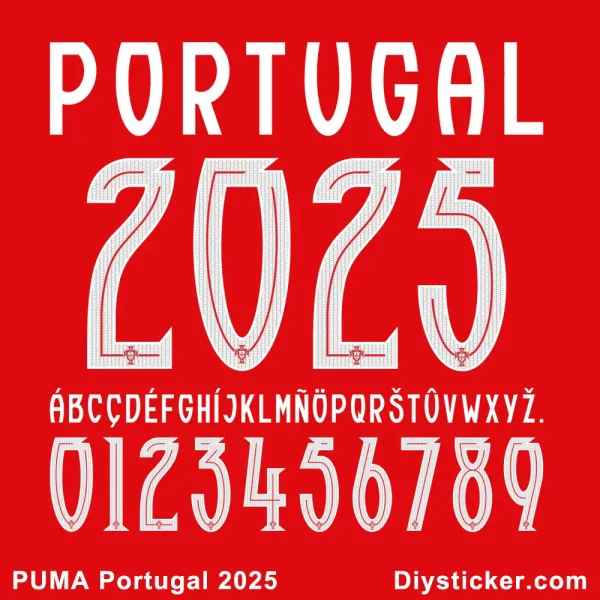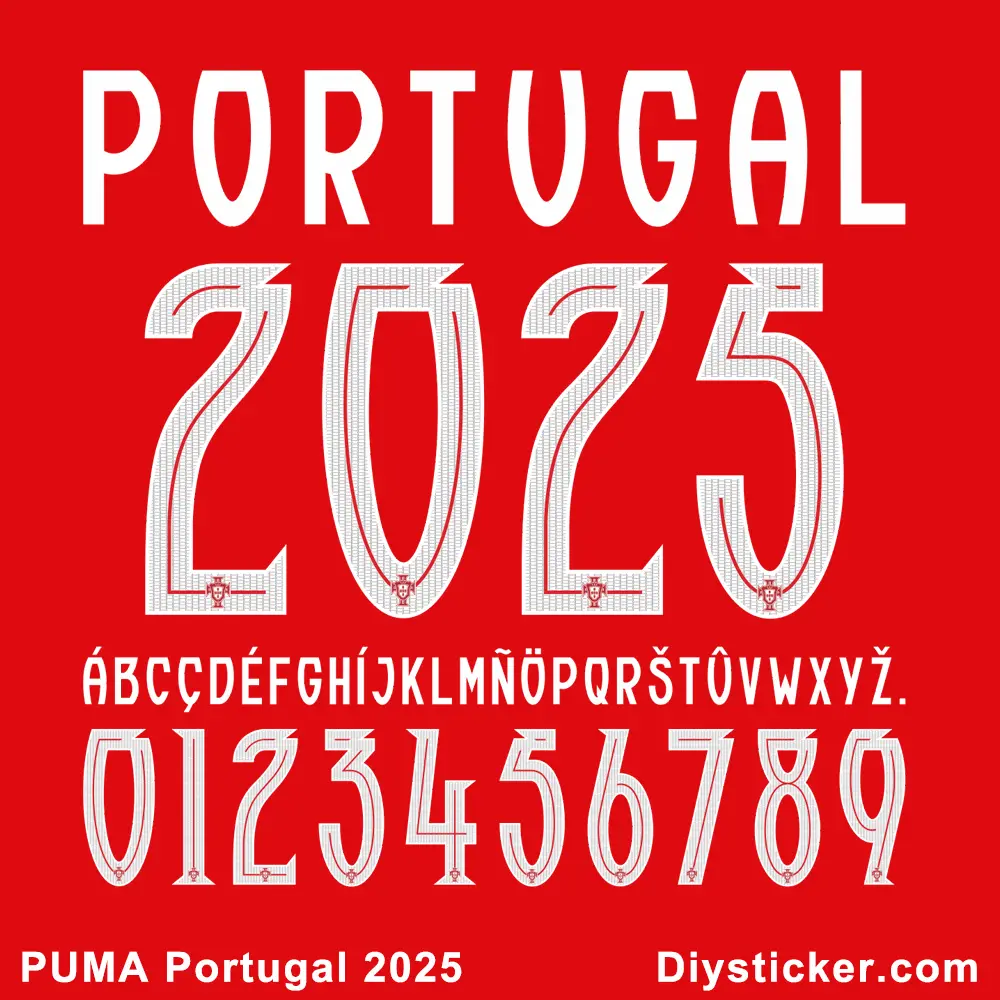
PUMA Portugal 2025 Font Vector Kit Download
PUMA Portugal 2025 Font Download: Crafted based on the official font for the 2025 season . includes ttf/otf file along with AI, CDR, PDF vector files.